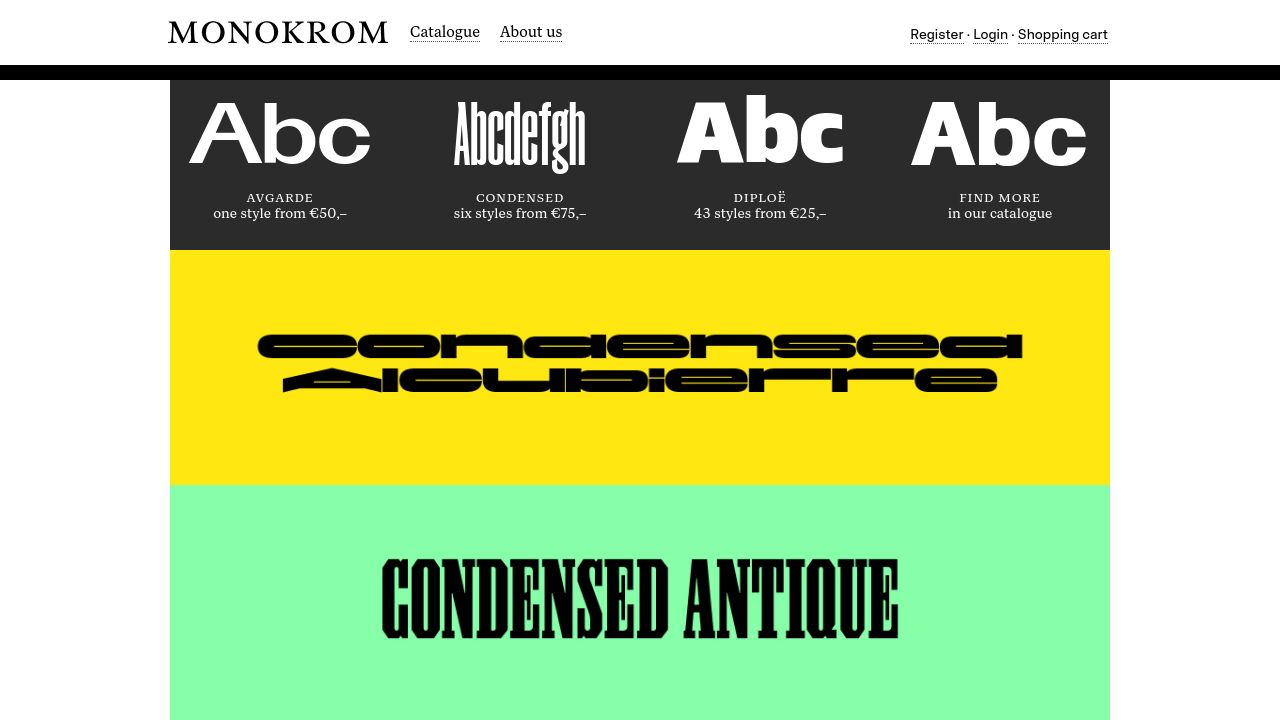
monokrom.no: What fonts does Monokrom use? - VestmarWeb Normal, Viksjoe Web, VestmarWeb Light
What fonts does Monokrom use?
Monokrom.no uses Dewey Decimal Web, Viksjoe Web, SymbioseII, SymbioseWeb and Aften Screen SC as its main typefaces. 111 fonts detected, last checked Sep 20, 2026.
Monokrom Skriftforlag, found at monokrom.no, embraces a rich typographic identity with its diverse selection of custom fonts. The use of VestmarWeb and SymbioseII reflects a commitment to clarity and readability, appealing to design enthusiasts and typographers alike. Fonts like Aften Screen SC and Nordvest Web add a unique flair, suggesting a focus on contemporary aesthetics while maintaining functionality. This thoughtful curation of typefaces enhances the visual narrative of their brand.
Frequently asked questions about Monokrom.no's fonts
What fonts does Monokrom.no use?
Monokrom.no uses Dewey Decimal Web, Viksjoe Web, SymbioseII, SymbioseWeb and Aften Screen SC as its main typefaces. 111 fonts detected, last checked Sep 20, 2026.
What fonts are used on monokrom.no?
Monokrom.no primarily uses custom fonts including VestmarWeb Normal, SymbioseII, Aften Screen SC, and Nordvest Web Regular among many others for a cohesive design.
How does VestmarWeb compare to other fonts?
VestmarWeb offers a unique design that emphasizes readability and versatility, making it suitable for both print and digital applications compared to more common typefaces.
What styles and weights are available for the fonts on monokrom.no?
Monokrom.no utilizes various styles and weights in their fonts, including options like VestmarWeb Bold, Light, and Extralight, providing a range of choices for different design needs.
Are there fallback fonts used on monokrom.no?
No fallback fonts are listed for monokrom.no, indicating a strong reliance on their custom font selections to maintain branding consistency across their website.